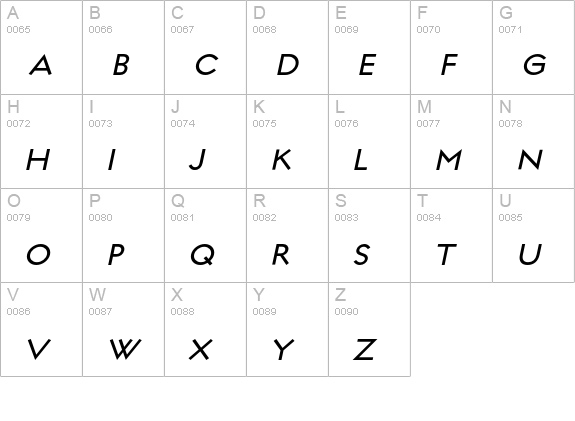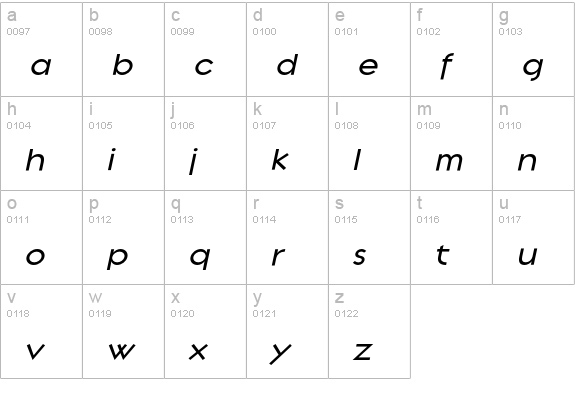
Regulator-MediumItalic Font Details
Regulator-MediumItalic font, with its sleek and modern design, is the perfect choice for those seeking a balanced blend of professionalism and style. Its striking curves and subtle slant add a touch of elegance to any project, making it ideal for both digital and print use. This font embodies a sense of authority and reliability, making it an excellent choice for corporate branding, logo design, and editorial layouts. Its medium weight and italicized form lend a sense of sophistication and refinement, capturing the attention of the reader. What sets Regulator-MediumItalic font apart is its accessibility. Not only does it possess exceptional design qualities, but it is also freely available to download at FontsMarket.com. This means that you can incorporate this visually pleasing and highly versatile font into your projects without any cost. Whether you are a professional designer or an avid DIY enthusiast, Regulator-MediumItalic font offers the opportunity to elevate your work to new heights. Its timeless appeal and versatility make it suitable for a wide range of applications, from website headings to printed materials. Don't miss out on this exceptional font. Download Regulator-MediumItalic today, and let your creativity flow with ease. Experience the power of this font's elegant form, knowing that you have made a savvy choice by accessing it for free at FontsMarket.com.